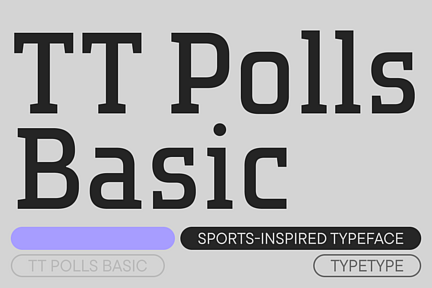
TT Polls Thin
TT Polls is a modern modular slab serif inspired by American sports graphics. As we wanted to create a really special and remarkable project, we’ve decided to add a traditional handwritten script to the slab serif. Although TT Polls and TT Polls Script subfamilies are stylistically contrasting each other, they perfectly match thanks to the appropriate proportions both in the thickness of vertical strokes and the general width of characters.